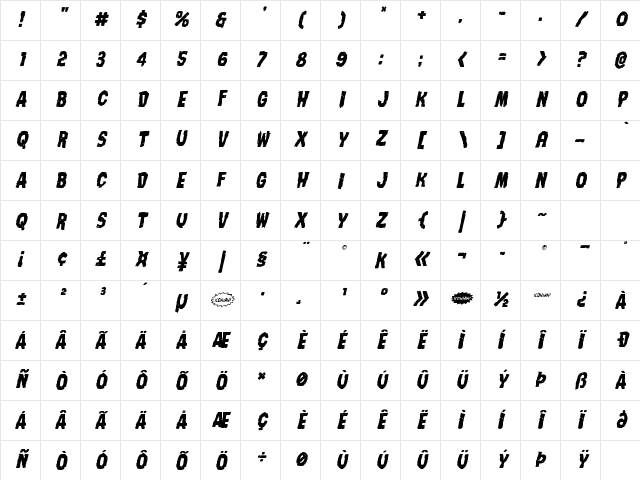
Nightmare Alley Staggered Italic
Complete Nightmare Alley Staggered Italic glyph index. Displaying only characters natively supported by Nightmare Alley Staggered Italic font.
Design Context for Nightmare Alley Staggered
Nightmare Alley Staggered is a composed and adaptable typeface that performs quietly and consistently across a wide range of design contexts. The slanted form adds forward momentum and visual energy.
Pro Tip: Use Nightmare Alley Staggered for emphasis, pull quotes, and subheadings where its slanted energy can add rhythm to the layout.